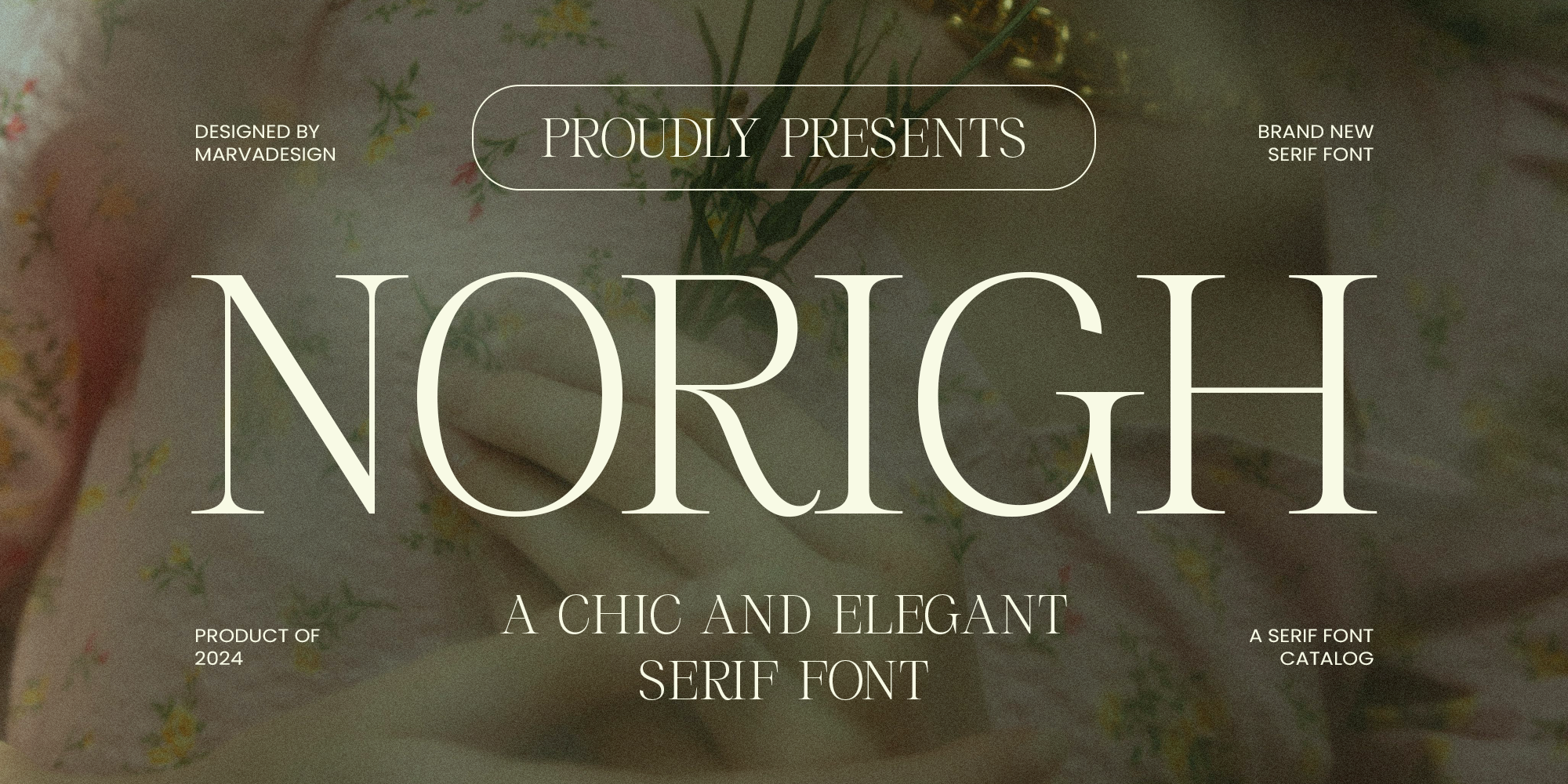
This sleek and contemporary typeface is perfect for tech startups, app interfaces, modern branding, posters, and digital marketing materials. It offers clean lines and a minimalist aesthetic that ensures clarity and professionalism.
What makes Norigh Font so exciting is its balance between geometric precision and humanistic warmth. The font combines sharp edges with smooth curves, making it versatile for a variety of design projects seeking a modern yet approachable look.
The Norigh Font family includes multiple weights such as Light, Regular, Bold, and Italic styles. It supports uppercase, lowercase, numerals, punctuation, and multilingual characters, providing flexibility for diverse creative needs.